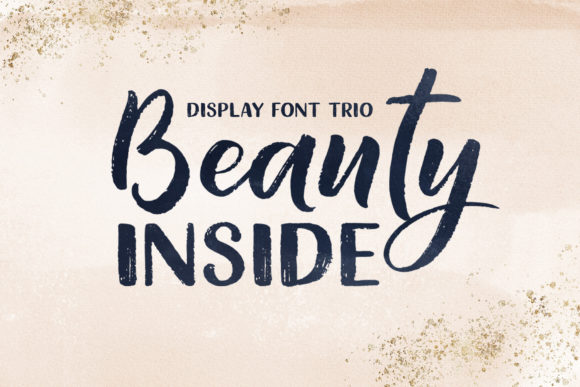
Introducing Beauty Inside, a display font trio that's not just a font, but an expression of your individuality. Its rough texture and hand-drawn style capture the raw beauty of authenticity, adding a touch of the personal to your design projects.
Journey into a world where creativity knows no bounds, where your designs dance with the rhythm of Beauty Inside's organic curves. Craft a logotype that captivates, a lettering composition that mesmerizes, and wedding invitations that carry the essence of romance. Let Beauty Inside accompany you as you design fashion projects with a touch of elegance, book design covers that exude a timeless charm, and countless other creations that reflect your unique vision.
With Beauty Inside, your imagination has found its perfect partner. Its versatile nature allows you to mold it to your liking, adapting effortlessly to a plethora of design styles. Whether you're a seasoned designer or just starting your creative journey, Beauty Inside welcomes you with open arms, ready to transform your ideas into visual masterpieces.
Unleash your inner artist and let Beauty Inside guide you through a symphony of design possibilities. Discover the joy of creating with a font that feels like an extension of your soul, a tool that amplifies your creativity and brings your visions to life. Embrace the Beauty Inside and watch as your designs blossom into works of art.